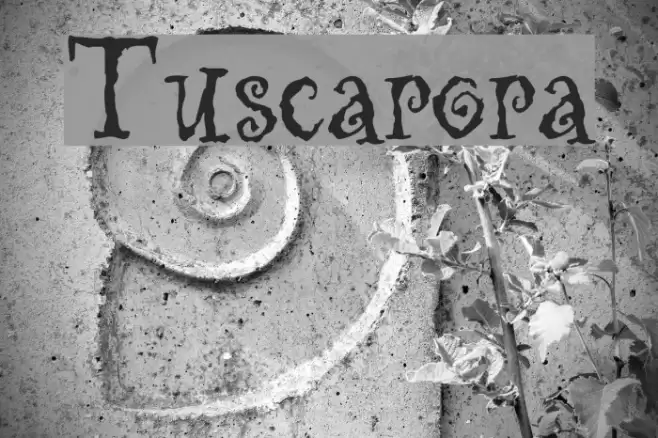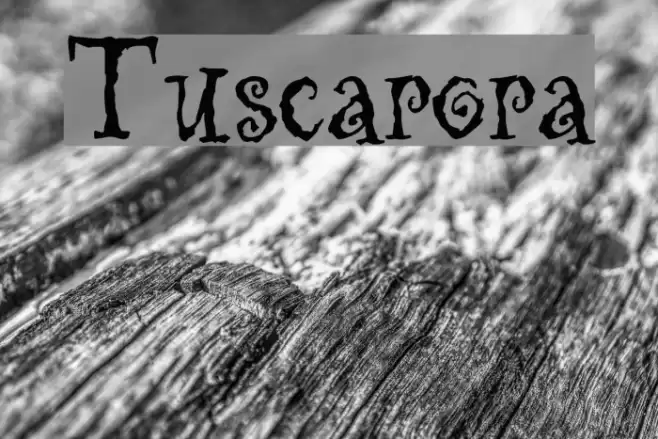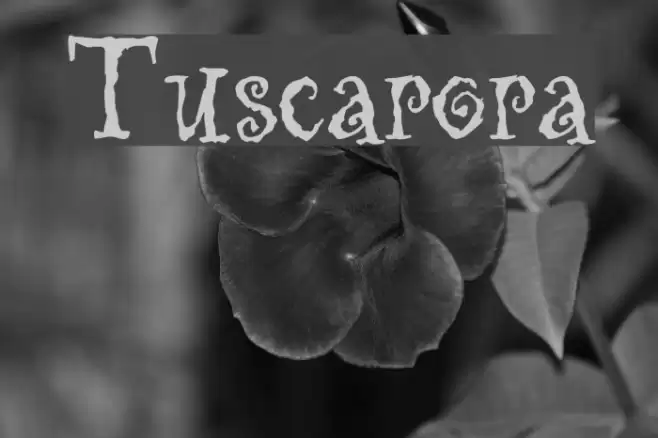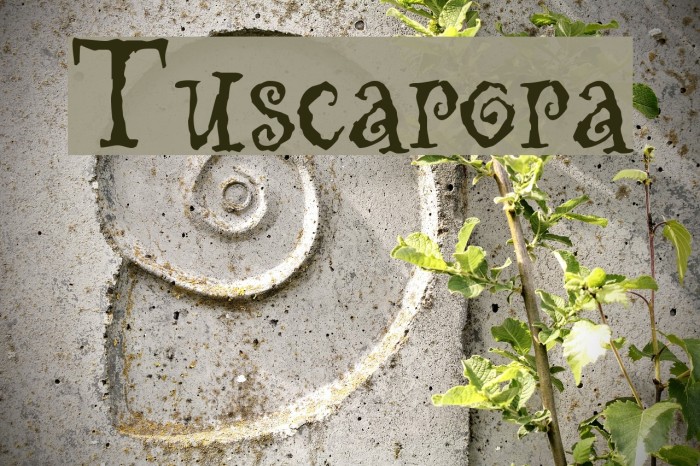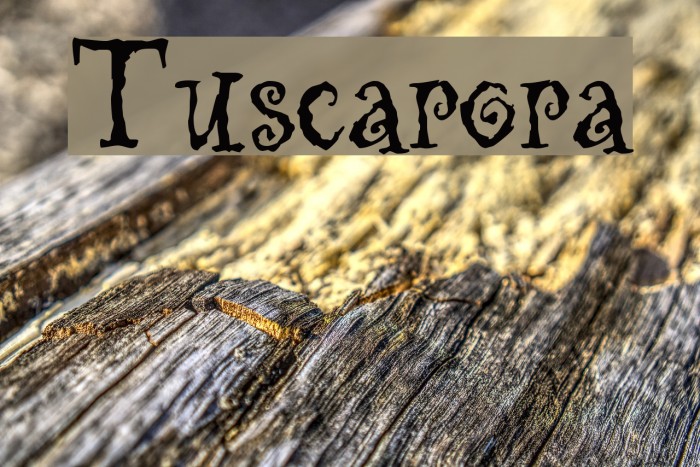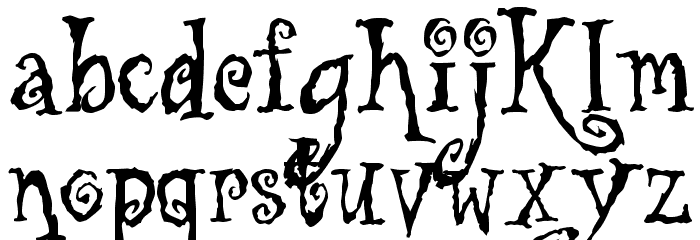
Tuscarora Font
Tuscarora Description
This font features a whimsical and decorative style with an artistic flair. Each character is uniquely designed with intricate swirls and embellishments, giving it a hand-drawn appearance. The uppercase letters are bold and ornate, while the lowercase letters maintain a playful yet sophisticated look. The numbers and special characters continue the theme with creative and imaginative designs. This font exudes a sense of fantasy and creativity, making it ideal for projects that require a touch of magic and individuality.
A whimsical, decorative font with artistic swirls and embellishments from Decorative fonts.
- Proposed Projects: Perfect for fantasy-themed designs, children's book covers, creative posters, and unique branding projects.